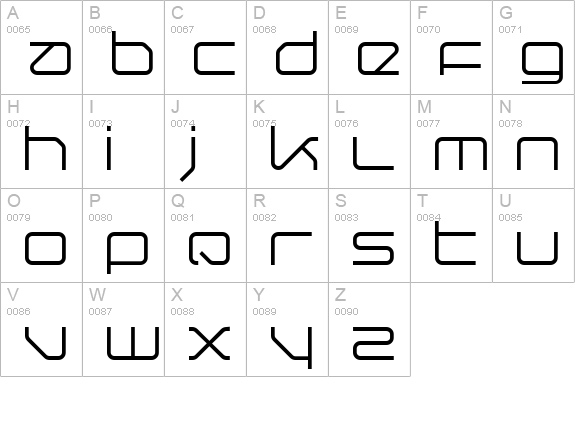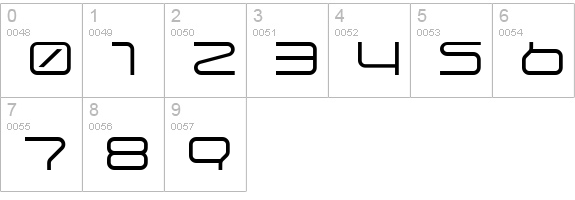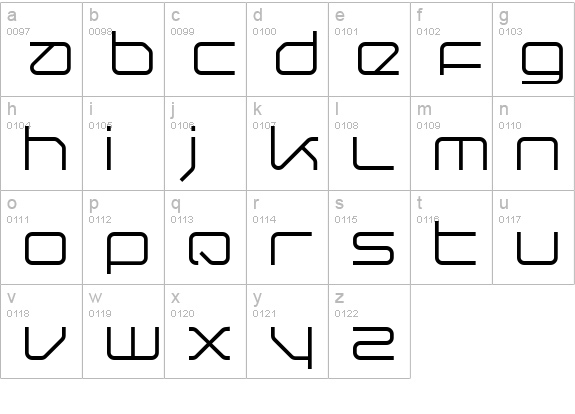
Querround Regular Font Details
Querround Regular is the standard, neutral variant in the Querround typeface family \xE2\x80\x94 well suited to general body text, paragraphs, and standard typographic work.
Querround Regular font is a captivating and versatile typeface that effortlessly combines elegance and modernity. With its clean and rounded letterforms, this font exudes a sense of sophistication and professionalism while maintaining a playful and friendly vibe. Perfect for a wide range of design projects, from branding to editorial design, Querround Regular font adds a touch of uniqueness and charm to any piece of artwork. Its well-balanced letterforms and generous spacing ensure readability and legibility, making it an ideal choice for both print and digital applications. One of the best features of Querround Regular font is that it is available for free download at FontsMarket.com. This means that you can access this outstanding font without any cost, making it an excellent option for designers on a budget or those seeking high-quality fonts without breaking the bank. Whether you are creating a logo, designing a website, or crafting a poster, Querround Regular font will elevate your project to new heights. Its versatile nature allows it to adapt to various design styles and aesthetics, making it a valuable addition to any designer's toolkit. Download Querround Regular font from FontsMarket.com today and unleash your creativity with this exceptional font that combines elegance, modernity, and the best part - it's free!